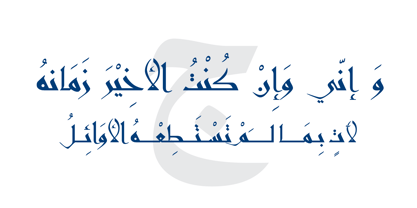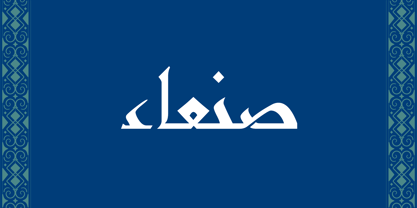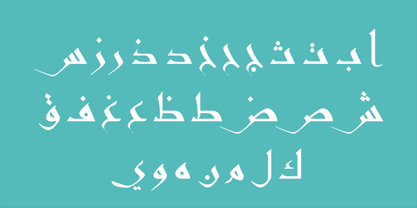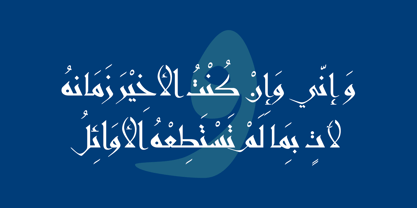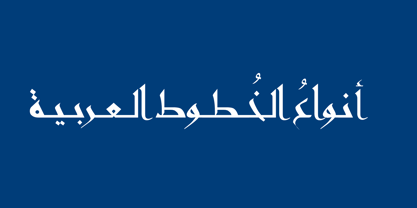
Sana
by Diwan Software
The Sana Font Family was designed by Diwan Font Team and published by Diwan Software. Sana contains 1 styles.
Sana is an elegant Arabic font that blends artistic beauty with refined sophistication. Its graceful curves and delicate letterforms create a sense of timeless elegance, making it ideal for projects that require a touch of artistry and class. Perfect for high-end branding, invitations, or creative designs, Sana adds a refined, artistic flair to any text, making it both visually striking and highly expressive.
Designers: Diwan Font Team
Publisher: Diwan Software
Foundry: Diwan Software
Design Owner: Diwan Software